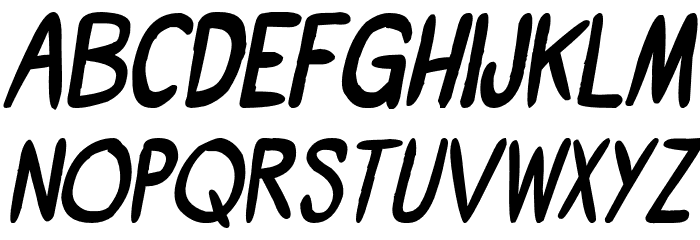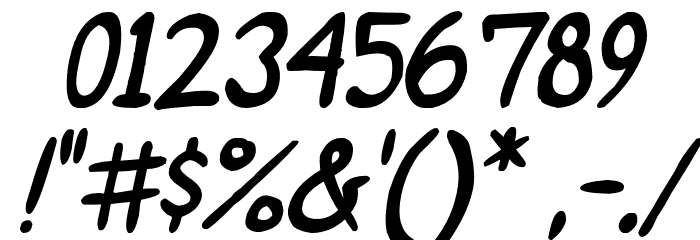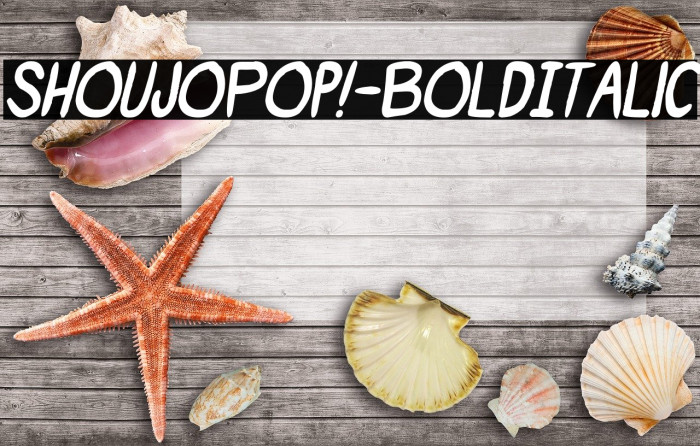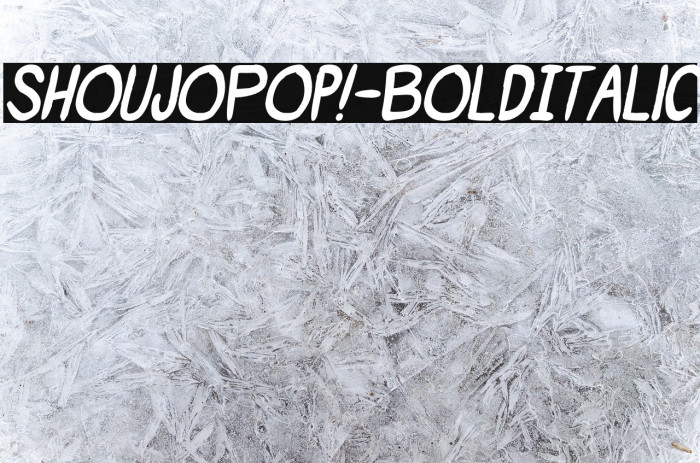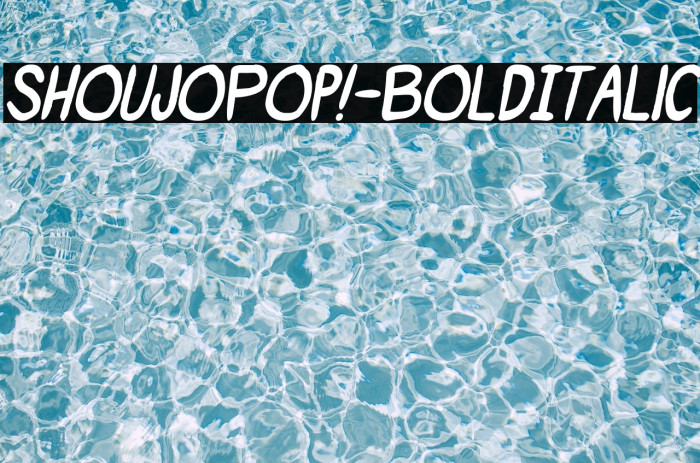
ShoujoPop!-BoldItalic Font
This playful and energetic font features a bold and italic style that exudes a sense of fun and creativity. The characters are rounded and slightly slanted, giving them a dynamic and lively appearance. The strokes are thick and consistent, providing a strong visual impact. The font maintains a casual and approachable feel, making it suitable for projects that aim to convey a sense of joy and enthusiasm. The numbers and special characters are designed to match the playful style of the letters, ensuring a cohesive look across all elements.
A bold and italic playful font with rounded, dynamic characters.
- Proposed Projects: Ideal for children's books, playful branding, party invitations, and comic-style graphics.
- Overall Style: Playful, Energetic